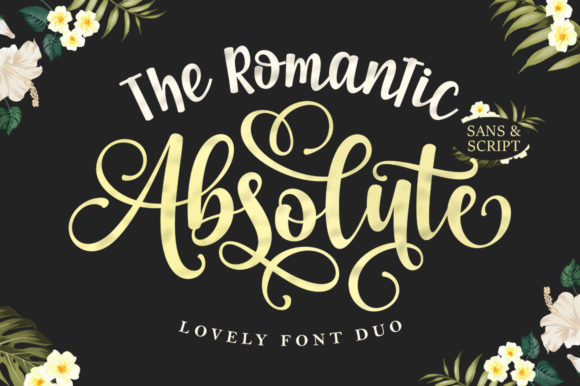
Introducing The Romantic Absolute Font, a breathtakingly beautiful and graceful duo font that will captivate your heart! This font, created by Lettersams, is the epitome of elegance and sophistication, making it the perfect choice for all your design needs.
Featuring a stunning combination of a sans serif and script font, The Romantic Absolute is a versatile and dynamic duo that will elevate your projects to new heights. Whether you're creating quotes, logos, invitations, or any other design piece, this font is guaranteed to make a lasting impression.
One of the standout features of The Romantic Absolute Font is its PUA encoding. This means that you have full access to all the glyphs and swashes, allowing you to unleash your creativity and add those perfect finishing touches to your designs effortlessly. Express yourself like never before and let your imagination run wild with the endless possibilities this font offers.
Fall head over heels for the ravishing style of The Romantic Absolute Font. Its delicate and intricately crafted letters exude a sense of romance and charm that will instantly mesmerize your audience. Whether you're aiming for a classic and timeless look or a modern and trendy vibe, this font has got you covered.
With The Romantic Absolute Font, your designs will effortlessly stand out from the crowd. Its unique and eye-catching aesthetic will draw attention and make a lasting impression on anyone who lays eyes on your creations. Get ready to receive compliments and praise for your impeccable design choices.
Don't settle for ordinary fonts when you can have The Romantic Absolute Font. It's not just a font, it's a statement. It speaks volumes about your impeccable taste and attention to detail. Let your designs speak for themselves and leave a lasting impression on your audience.
Unleash your creativity and elevate your designs with The Romantic Absolute Font. Experience the thrill of creating stunning and captivating visuals that will leave your audience in awe. Download The Romantic Absolute Font today and embark on a design journey like no other. Your imagination is the only limit.